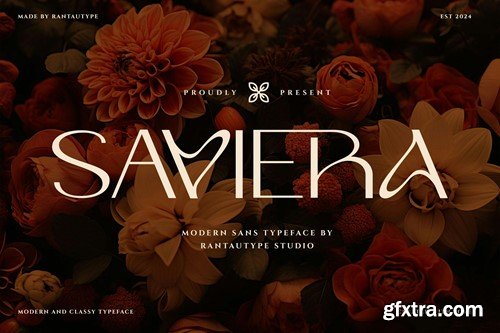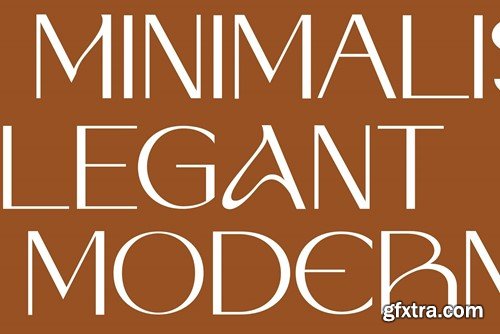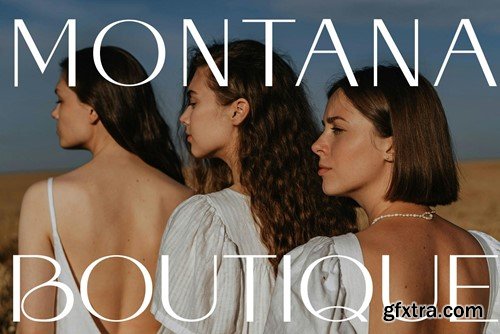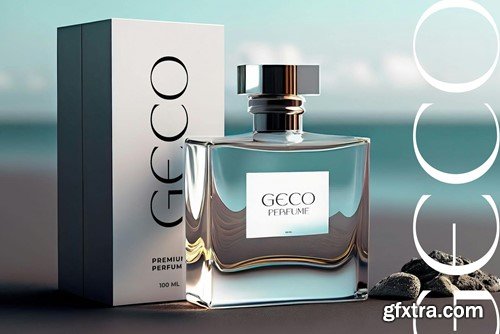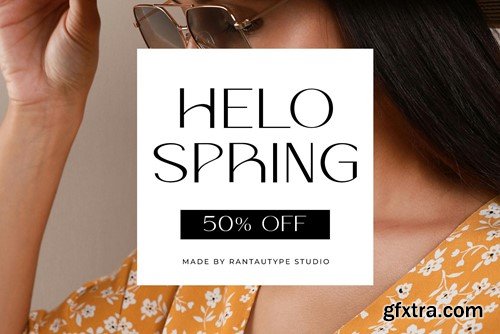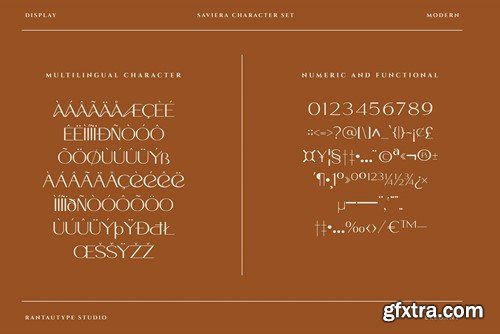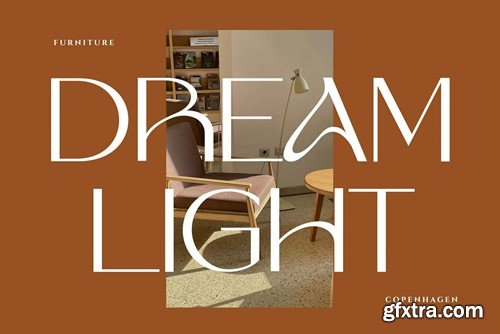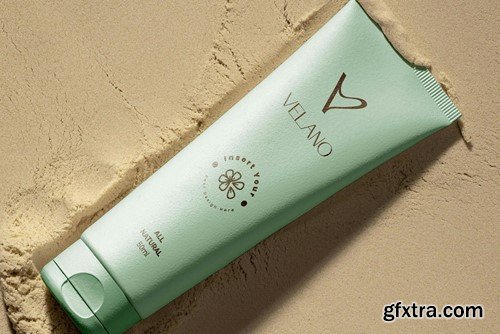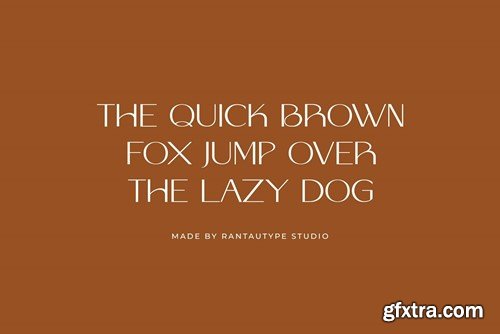
Saviera Modern Sans 字型DR9JF82
Saviera is modern and elegant typeface inspire by fahion brand and minimalist style. Saviera come to help you make a visual design project stand out. Saviera is a perfectly choice for any creative endeavor, chic, lifestyle design such as logos, advertisements, watermark on photography, stationery, branding project, display and magazine, invitation, corporate brand, product design, label, business project and many other project with elegant touch. What you have: Fonts include Multilingual Character for: Afrikaans, Albanian, Asu, Basque, Bemba, Bena, Breton, Chiga, Cornish, Dutch, English, Estonian, Filipino, Finnish, Friulian, Galician, Gusii, Indonesian, Irish, Italian, Kabuverdianu, Kalenjin, Kinyarwanda, Luo, Luxembourgish, Luyia, Machame, Makhuwa-Meetto, Makonde, Malagasy, Manx, Morisyen, North, Ndebele, Nyankole, Oromo, Portuguese, Quechua, Romansh, Rombo, Rundi, Rwa, Samburu, Sango, Sangu, Scottish, Gaelic, Sena, Shambala, Shona, Soga, Somali, Spanish, Swahili, Swedish, Swiss, German. Thank you for your purchase! Hope you enjoy with our font!